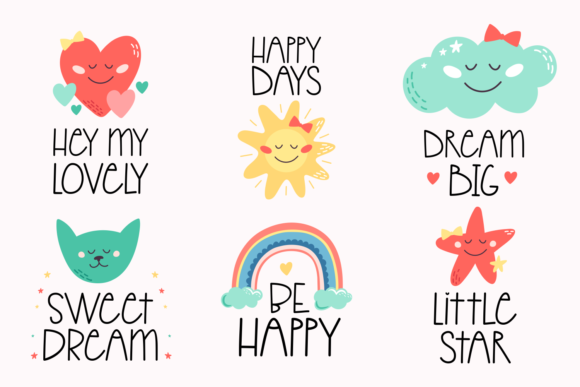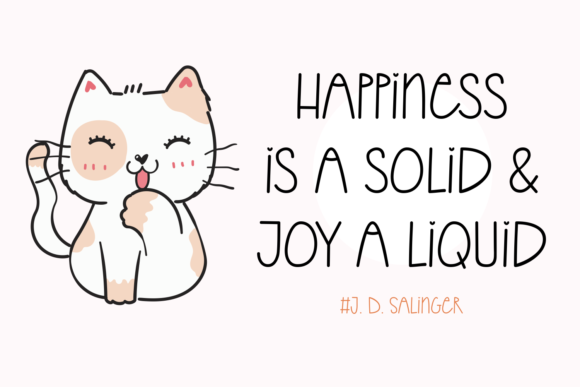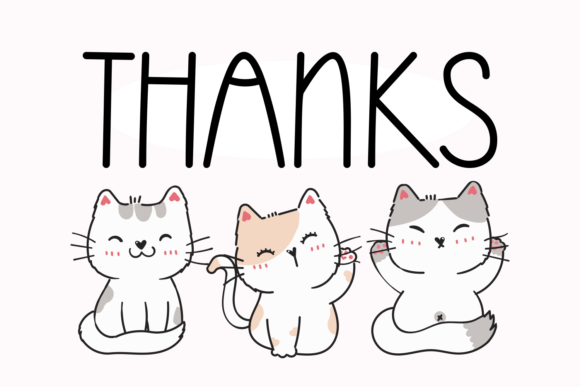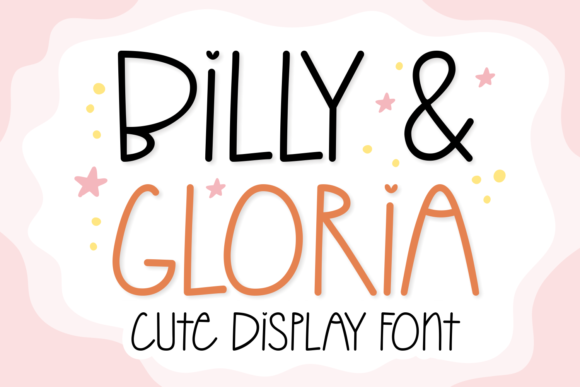
Billy and Gloria Font: The Ultimate Display Font for Friendly Designs
Are you tired of using the same old fonts for your designs? Look no further than the Billy and Gloria font, a childish and easy-to-read display font that’s perfect for adding a touch of friendliness to your projects. In this article, we’ll dive into the world of Billy and Gloria, exploring its features, uses, and benefits for designers and crafters alike.
The Perfect Blend of Friendliness and Readability
Billy and Gloria is a display font that exudes impeccable friendliness, making it an excellent choice for a wide range of design projects. Its childish charm and easy-to-read design make it perfect for crafts, digital design, presentations, and even making greeting cards. Whether you’re a professional designer or a DIY crafter, this font has the potential to become your go-to font for all your design needs.
Key Features of Billy and Gloria Font
• Childish and playful design: Billy and Gloria’s unique design is sure to capture the attention of your audience and add a touch of whimsy to your projects.
• Easy-to-read: Despite its playful design, this font is incredibly easy to read, making it perfect for use in a variety of contexts, from digital designs to printed materials.
• Display font: Billy and Gloria is specifically designed as a display font, making it perfect for headlines, titles, and other attention-grabbing elements.
• Versatile: This font can be used for a wide range of projects, from crafts and digital design to presentations and greeting cards.
Uses for Billy and Gloria Font
So, what can you use Billy and Gloria for? The possibilities are endless! Here are a few ideas to get you started:
• Crafts: Add a personal touch to your handmade crafts, such as knitted items, scrapbooking, and DIY jewelry.
• Digital design: Use Billy and Gloria in your digital designs, such as social media graphics, blog posts, and website headers.
• Presentations: Add a touch of friendliness to your presentations and make them more engaging for your audience.
• Greeting cards: Create personalized and unique greeting cards for special occasions, such as birthdays, holidays, and weddings.
So, why should designers and crafters choose Billy and Gloria font? Here are just a few benefits:
• Easy to use: This font is incredibly easy to use, even for those who are new to design or crafting.
• Time-saving: With Billy and Gloria, you can create professional-looking designs in no time, saving you time and effort.
• Unique designs: This font allows you to create unique and eye-catching designs that will set you apart from others.
• Cross-platform compatibility: Billy and Gloria can be used on a variety of platforms, from digital designs to printed materials.
In conclusion, Billy and Gloria font is a versatile and easy-to-use display font that’s perfect for designers and crafters alike. Its childish charm and easy-to-read design make it an excellent choice for a wide range of projects, from crafts and digital design to presentations and greeting cards. With its numerous benefits and uses, Billy and Gloria is sure to become your go-to font for all your design needs.